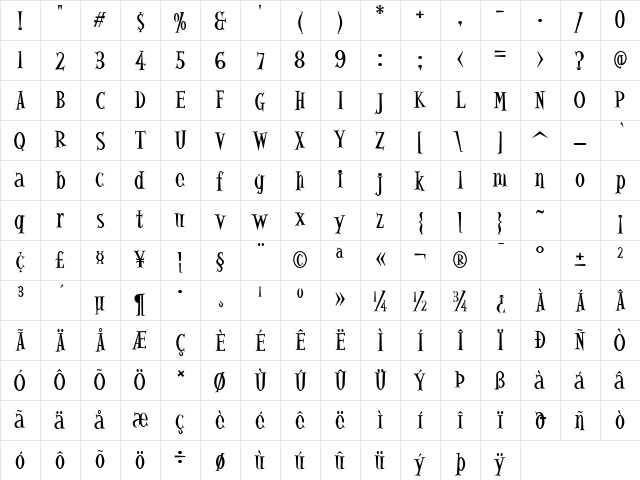
AlleycatICG Medium Free Font
AlleycatICG Medium
AlleycatICG Family
Complete AlleycatICG Medium glyph index. Displaying only characters natively supported by AlleycatICG Medium font.
Design Context for AlleycatICG
AlleycatICG is a composed and adaptable typeface that performs quietly and consistently across a wide range of design contexts.